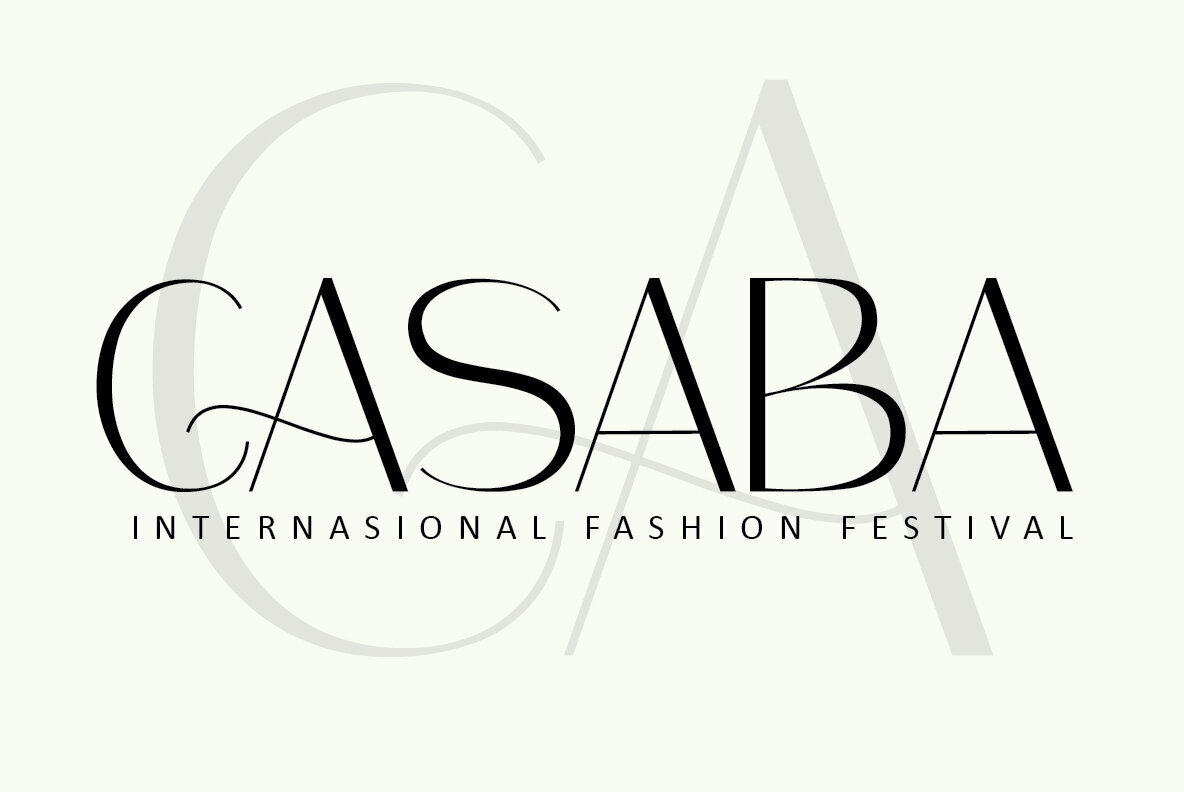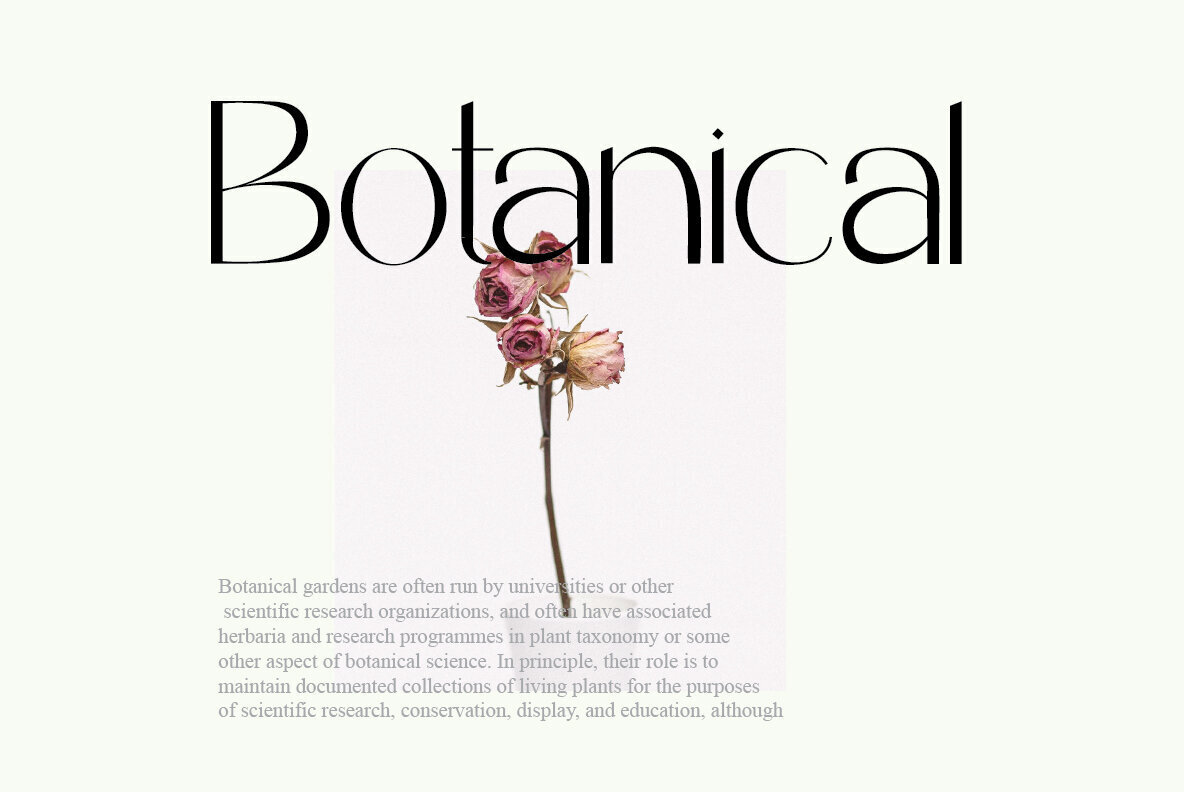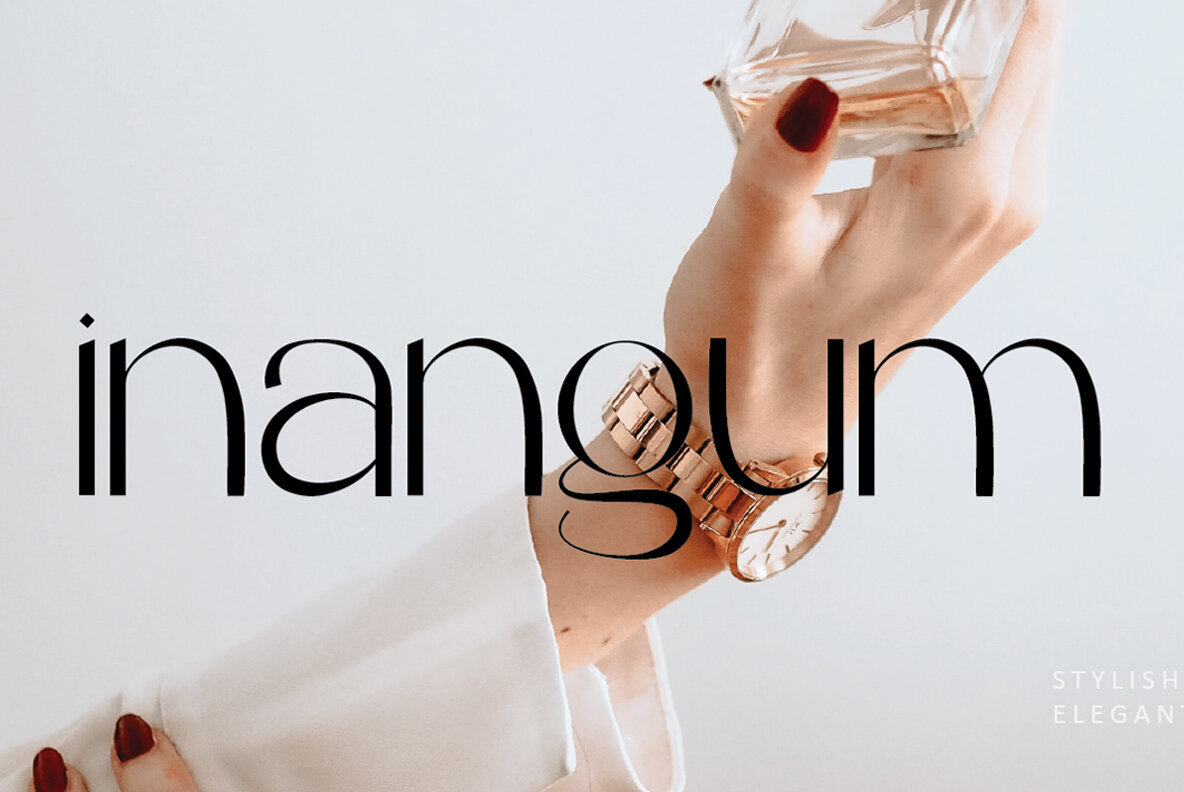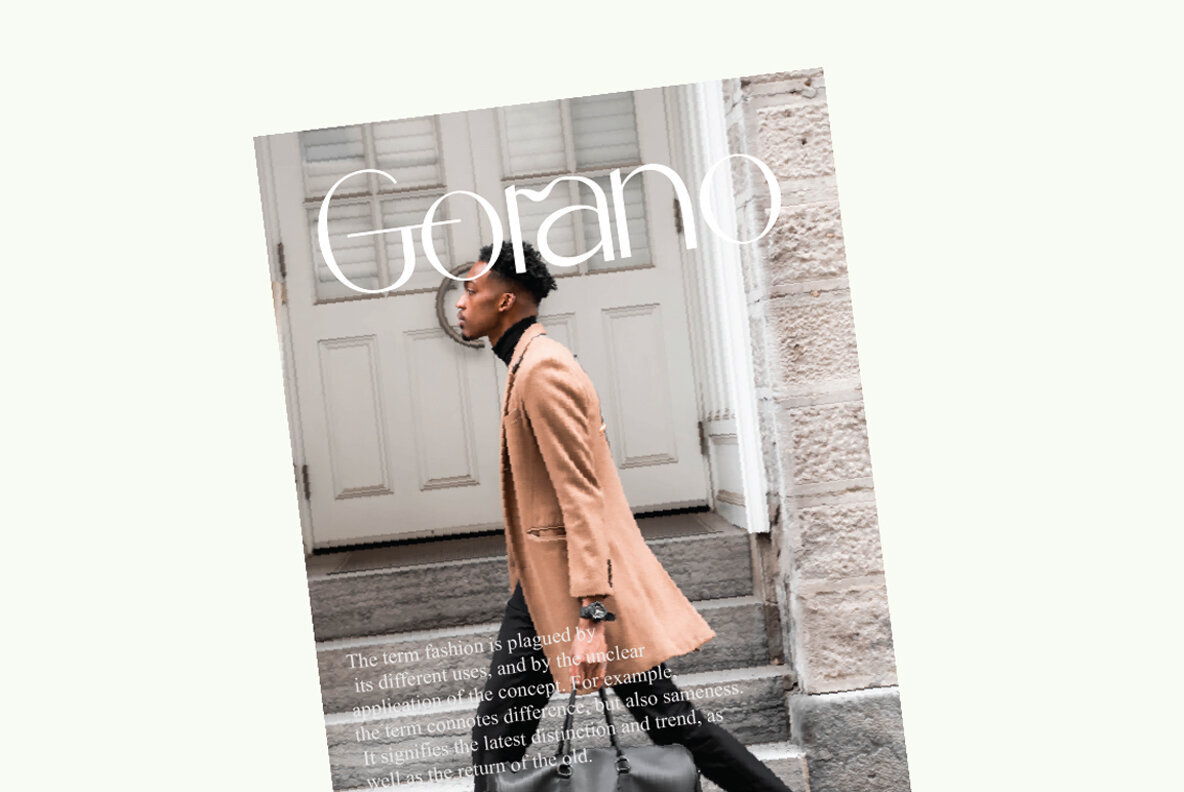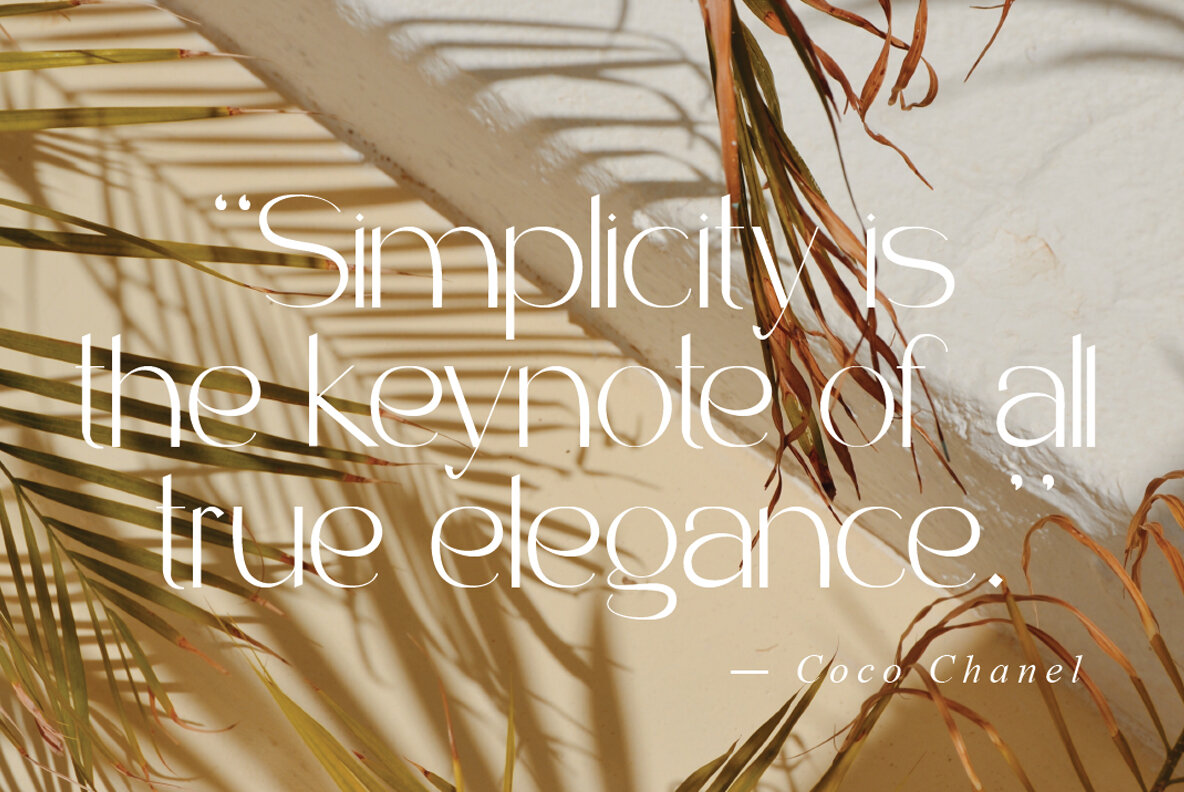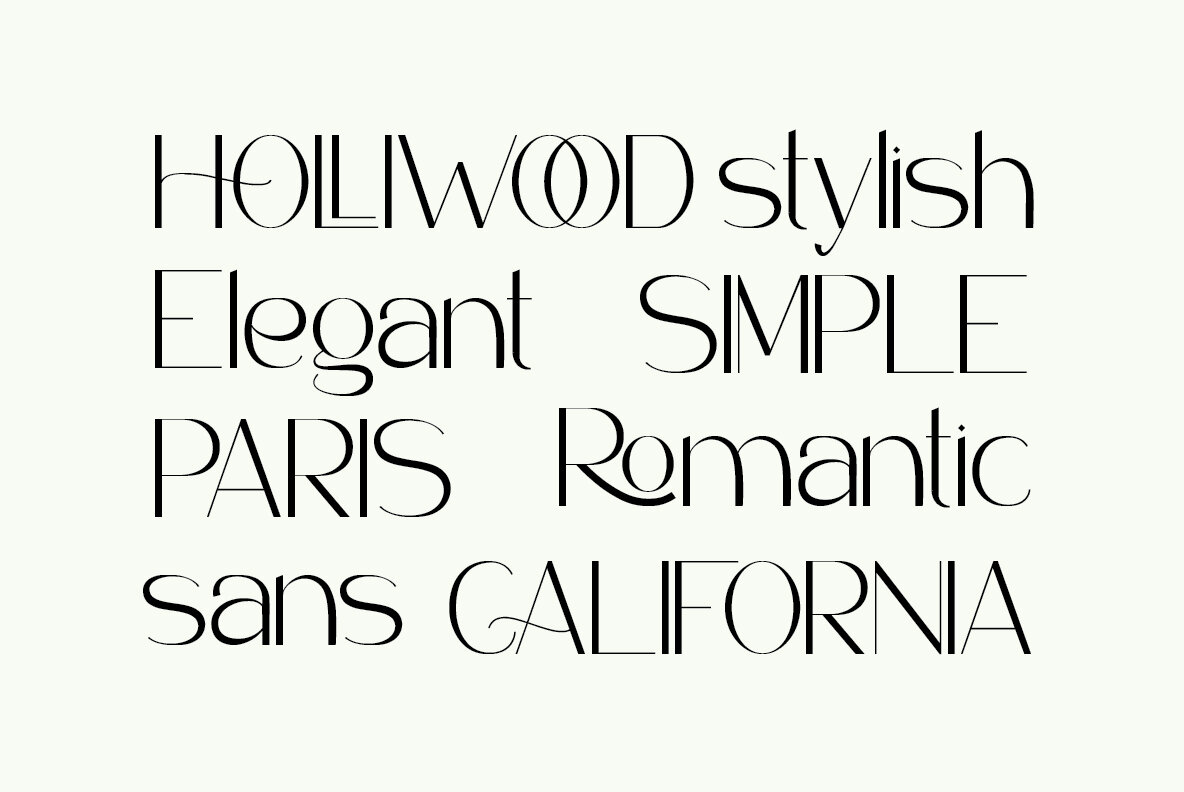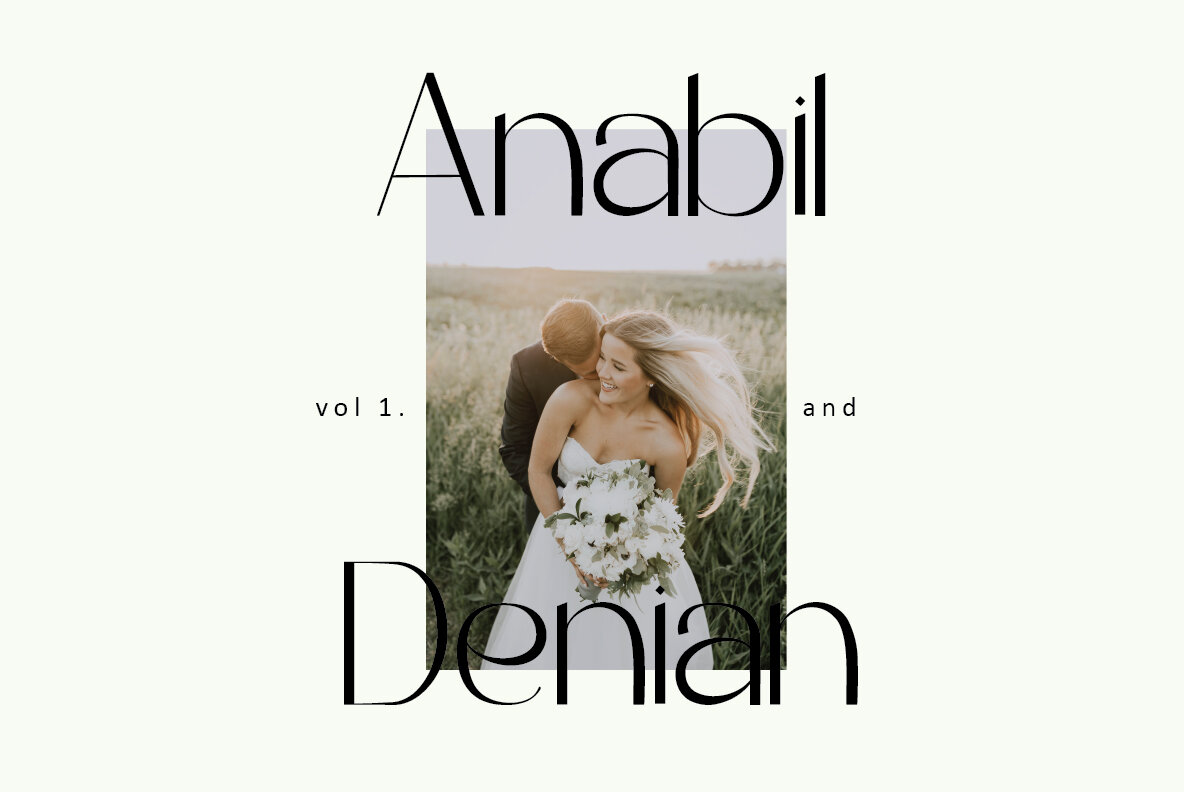
Earga Font
Earga
Earga, crafted by Muksal Creative, emerges as an avant-garde sans serif font designed to meet the needs of contemporary branding. This typeface distinguishes itself with its unique ligatures that subtly enhance the visual identity of any brand it graces. Whether you are a designer looking to infuse your work with modernity or a product owner eager to stand out, Earga provides the versatility you require. Its thoughtfully curated set of ligatures and alternate characters enables endless creative possibilities, allowing you to tailor your project's aesthetic according to your vision. Such flexibility makes Earga an indispensable tool for those seeking easy solutions in their design endeavors.Earga: A Modern Sans Serif with Unique Ligatures